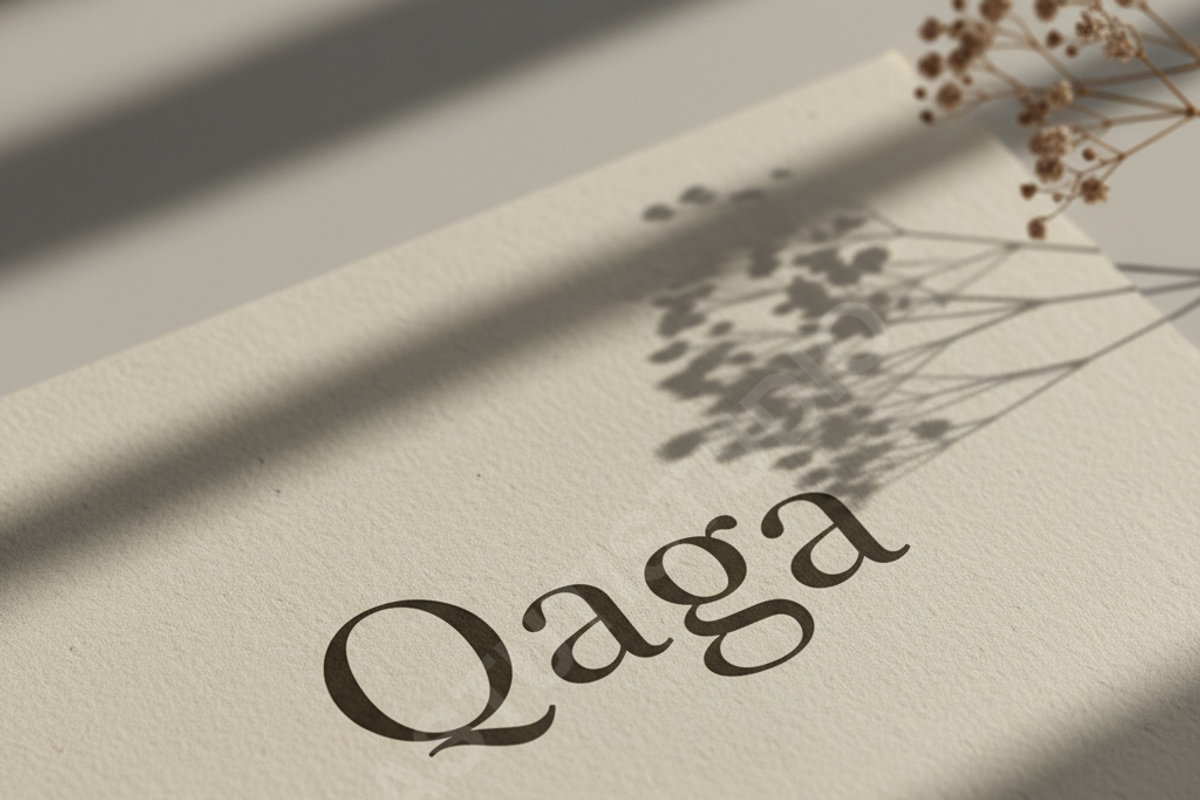
Qaga - Elegant Luxury Serif Typefac
Qaga | A Modern Luxury Serif Typeface
Elevate your visual identity with Qaga, a premium serif font meticulously crafted for high-end branding, editorial layouts, and sophisticated social media content. Developed for the discerning designer, Qaga embodies a perfect balance of sharp contrasts and graceful curves, making it the ideal choice for those who seek a timeless yet contemporary aesthetic.
- Sophisticated serif design with high contrast
- Comprehensive multilingual character support
- Custom ligatures for a bespoke, hand-crafted look
- Perfectly balanced kerning for professional typography
- Optimized for both digital interfaces and high-quality print media
- Full set of uppercase and lowercase characters
- Comprehensive numbers and punctuation
- Stylistic alternates and unique ligatures
Ideal Applications:
- Luxury Branding and Corporate Identity
- High-fashion Editorial and Magazine Layouts
- Elegant Wedding Stationery and Invitations
- Premium Product Packaging
- Social Media Graphics and Minimalist Posters